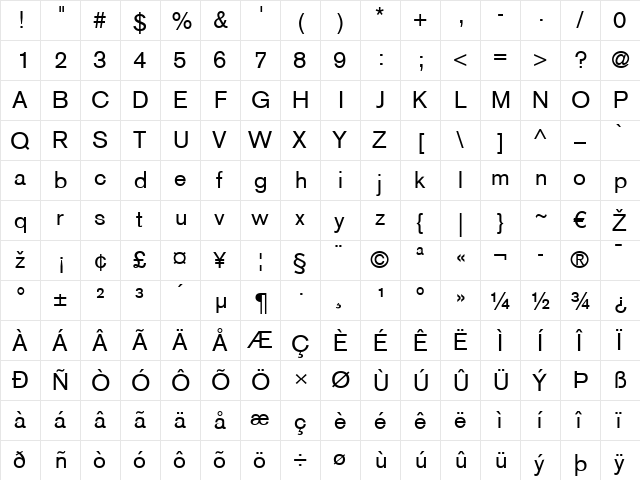
BasicCommercial LT Roman Regular
Design Context for BasicCommercial LT Roman Typeface
BasicCommercial LT Roman is a composed and adaptable typeface that performs quietly and consistently across a wide range of design contexts. Its slender proportions lend an understated elegance to any composition.